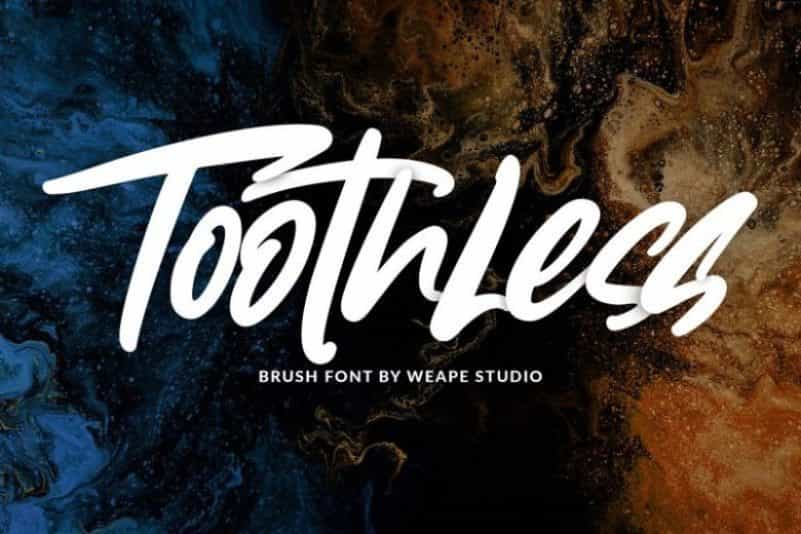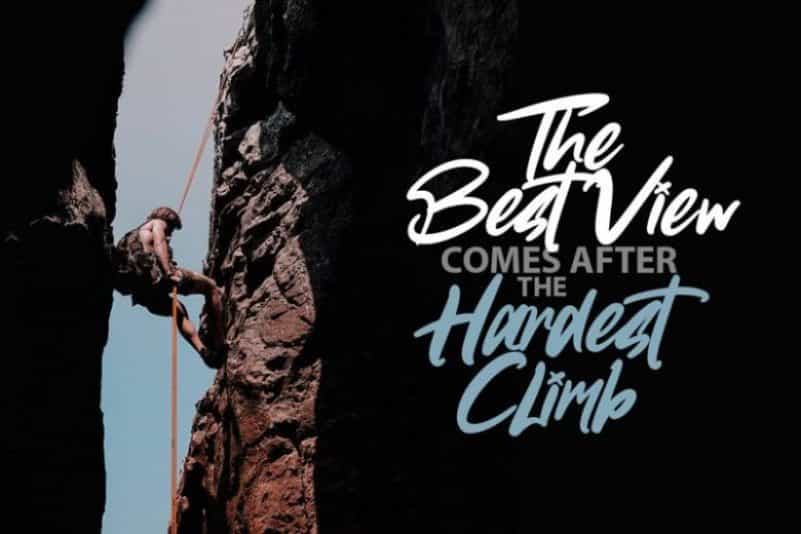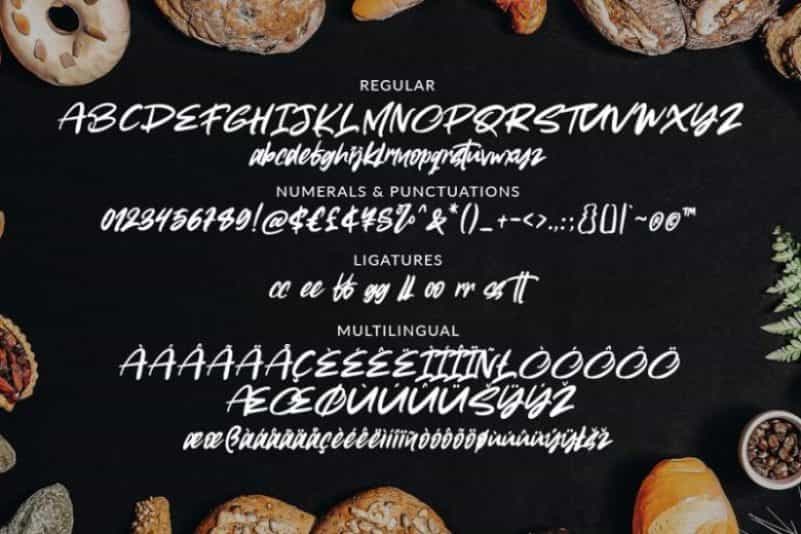
Introducing Toothless Font. It’s with the stroke of hand quick, which is also, quite literally, the case when this phrase is used to describe the speed, precision, and flow of a particular action or movement. Toothless can be used and enjoyed for adverts and all the rest of it. This font is ideal for using signature logo, handwritten words, product, fashion magazine, photography, merchandise, branding projects, poster, social media post, book cover, flyer, and advertising.